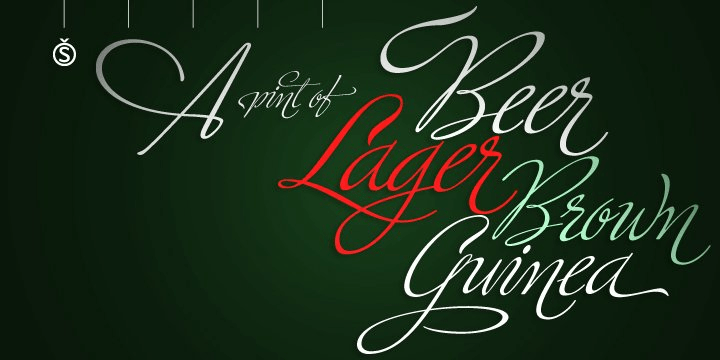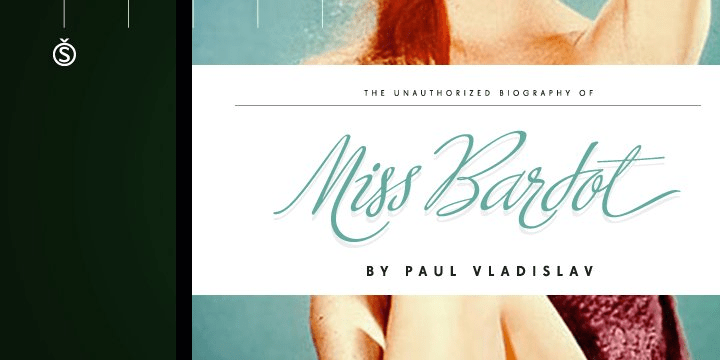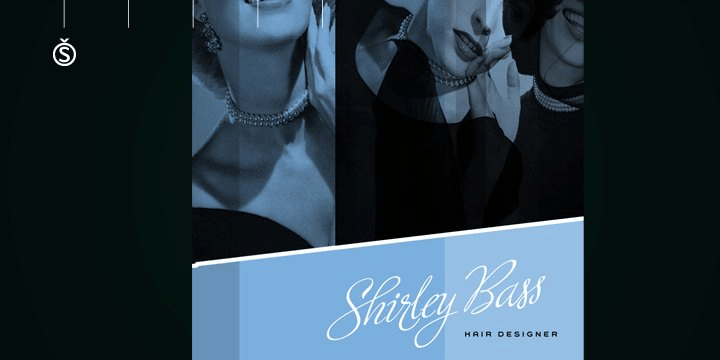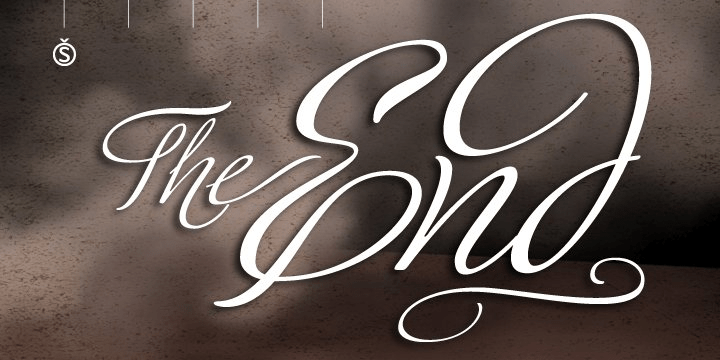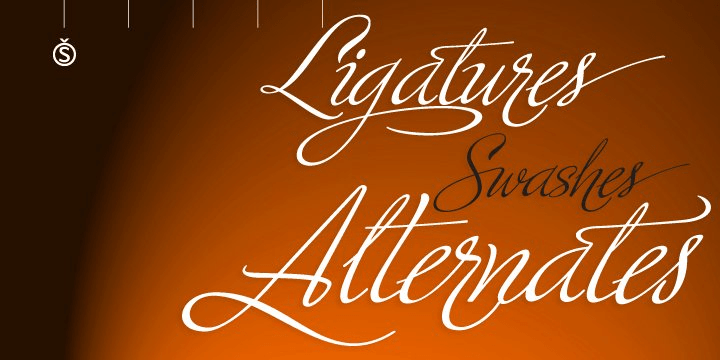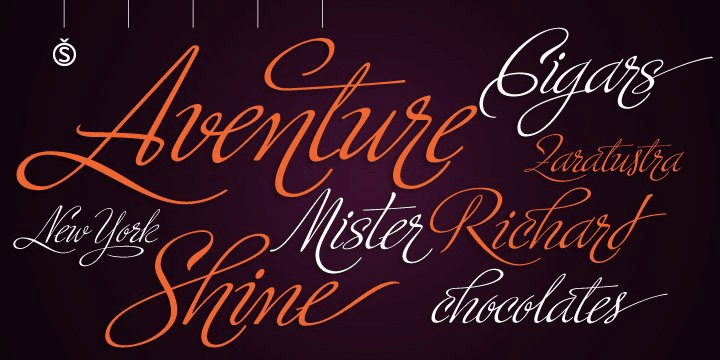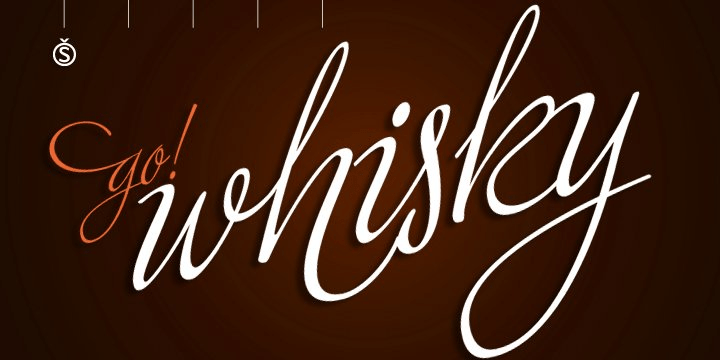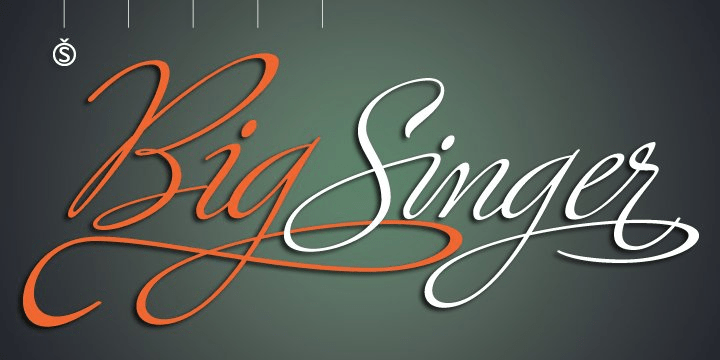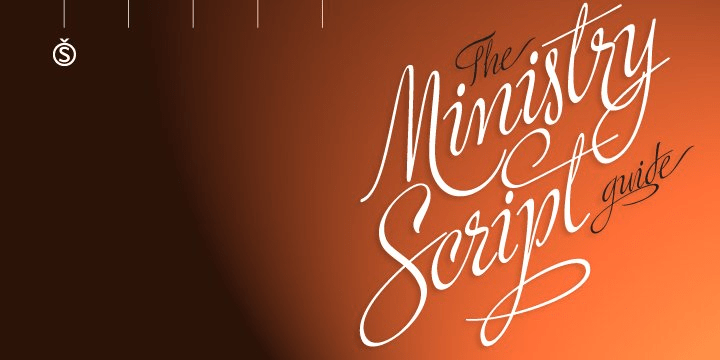
Ministry Script
About Ministry Script
Ministry Script was designed to be ?A time capsule that marks both the American ad art of the 1920s, and the current new-millennium acrobatics of digital type.? Ministry\’s OpenType features include contextual and stylistic alternates, swash characters,…